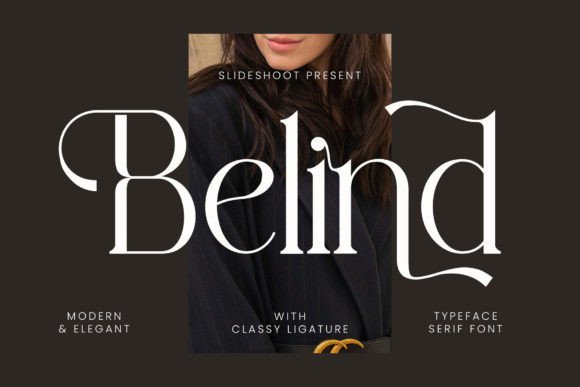
Introducing Belind Font: The Epitome of Elegance and Sophistication
In the realm of typography, fonts play a pivotal role in conveying the tone and aesthetic of a brand, product, or creative project. Among the myriad of fonts available, Belind Font stands out as a beacon of elegance and sophistication. Specifically, Belind Serif has garnered attention for its balanced, smooth, and stylish serif design, making it an ideal choice for a wide array of applications.
What is Belind Serif?
Belind Serif is a meticulously crafted serif font that embodies the perfect blend of balance, smoothness, and elegance. Its design is characterized by subtle serifs that exude a sense of sophistication and refinement. This font is not just a typeface; it’s an experience that elevates the visual appeal of any project it’s used in.
Key Features of Belind Serif
- Balanced Design: Belind Serif boasts a well-balanced design that ensures readability and aesthetic appeal.
- Smooth Lines: The font features smooth lines that contribute to its elegant appearance.
- Elegant and Stylish: Its serif design adds a touch of elegance and style to any text.
- Beautiful Character: Each character in Belind Serif is designed with beauty in mind, making every word a visual treat.
- Stylish Alternations and Ligatures: The font includes stylish alternations and ligatures, which enhance its versatility and aesthetic appeal.
Use Cases for Belind Serif
Belind Serif’s versatility makes it suitable for a variety of design projects. Some of the most notable applications include:
- Invitation Card Designs: The elegance of Belind Serif makes it perfect for wedding invitations, event invites, and other formal announcements.
- Company Logos: For businesses aiming to project a sophisticated and professional image, Belind Serif can be a valuable asset.
- Movie Titles and Names: The font’s stylish appearance is well-suited for movie titles, adding a touch of glamour to posters and movie-related materials.
- Business Cards: Belind Serif helps in creating business cards that stand out with their elegant typography.
- Book Titles: For publishers and authors looking for a font that conveys class and sophistication, Belind Serif is an excellent choice.
- Brand Names: Establishing a strong brand identity is crucial, and Belind Serif can play a significant role in achieving that with its unique style.
- Various Other Designs: From advertising materials to website headers, Belind Serif can elevate the visual appeal of numerous design projects.
The Sophistication of Belind Serif
What sets Belind Serif apart is its ability to convey sophistication and elegance through its subtle serif design. In a world where fonts are abundant, Belind Serif manages to stand out with its refined features. Its stylish alternations and ligatures are not just aesthetic additions; they are elements that make the font highly adaptable to different design needs.
Why Choose Belind Serif?
Choosing Belind Serif for your design project comes with numerous benefits:
- Enhances Readability: Despite its elegant design, Belind Serif does not compromise on readability, making it suitable for both digital and print media.
- Versatility: Its wide range of applications makes it a versatile addition to any designer’s toolkit.
- Timeless Appeal: The classic elegance of Belind Serif ensures that your designs remain timeless and relevant.
Belind Serif is more than just a font; it’s a design statement that speaks of elegance, sophistication, and refinement. Its balanced design, smooth lines, and beautiful characters make it an excellent choice for a myriad of design projects. Whether you’re working on a company logo, movie title, or book cover, Belind Serif offers the perfect blend of style and readability. Embrace the elegance of Belind Serif and elevate your designs to new heights of sophistication and aesthetic appeal.